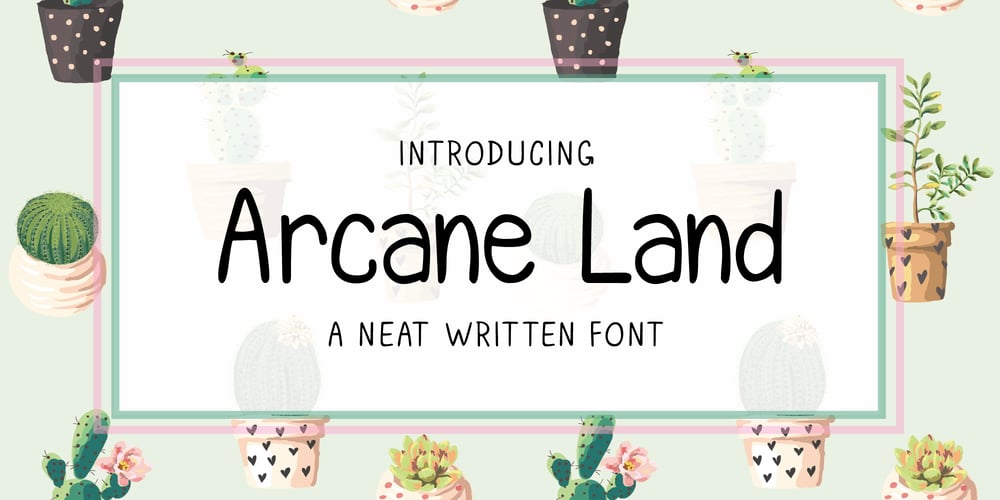
Arcane Land Font Family was designed by Lia Almuknisa and published by Fromletterel. Arcane Land contains 2 styles and family package options. This font will sparks childish energy which is cheerful and playful, but it still usable to any kind of design because its familiarity. Arcane Land is a neat casual handwritten. Despite its neatness, this font is still looked handmade because the stroke and the asymmetrical shape. Suitable for posters, logos, branding, and all designs that need natural text writing.Go get your ticket to the Arcane Land!